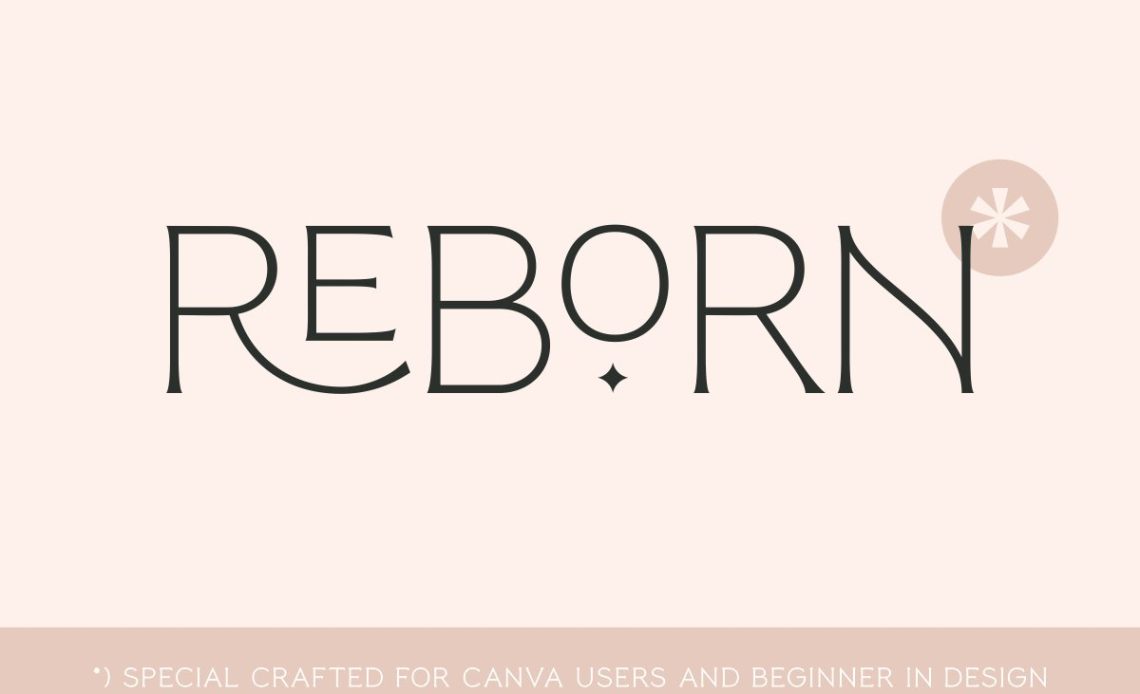
Welcome to Reborn - Modern Chic Font Collection!
If you're looking for a unique and chic font for your brand and logo design, look no further than Reborn. This font was created with beginners in mind, making it easy to use even if you've never used Opentype features before. With its ligatures and fancy style options, Reborn is perfect for creating a modern and stylish look for your graphic designs.
Reborn features a full set of uppercase and lowercase letters, multilingual symbols, numerals, punctuation, and ligatures. The ligatures included are KA, KC, KE, KG, KO, KS, KU, KY, RA, RC, RE, RG, RO, RS, RU, RY, QA, QC, QE, QG, QO, QS, QU, QY, LA, LC, LE, LG, LO, LS, LU, and LY.
What sets Reborn apart from other fonts is its versatility and modern chic style. Whether you're designing a brand or a logo, Reborn will give your design a unique and chic look that is sure to impress. With its unique ligatures and fancy style options, Reborn is perfect for creating a memorable and eye-catching design.
In summary, if you're looking for a font that is modern, chic, and versatile, Reborn is the perfect choice for you. With its full set of features, including ligatures, fancy style options, and compatibility with all software that supports Opentype features, Reborn is the perfect choice for any designer looking to create a unique and memorable design.